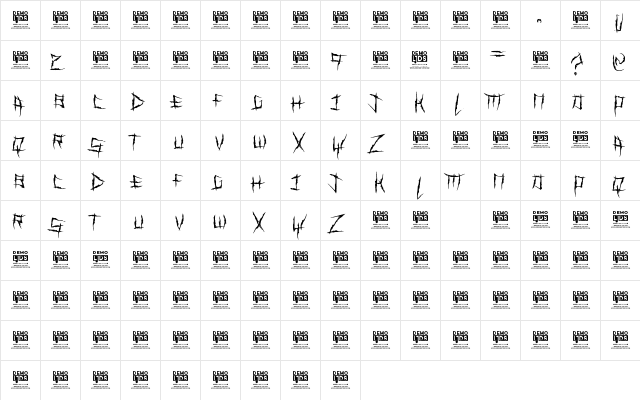
Demon Killer Regular
| Foundry | LJ Design Studios |
| Designer | Luis Jaramillo |
Design Context for Demon Killer Typeface
Demon Killer is a composed and adaptable typeface that performs quietly and consistently across a wide range of design contexts.